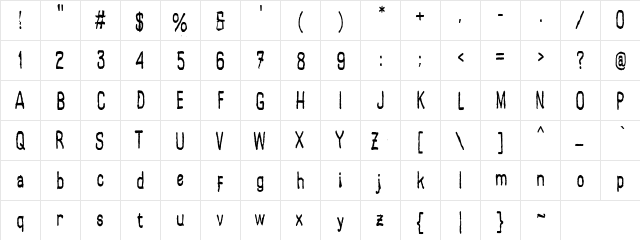
Sunday Everyday Regular
| Foundry | Yosan Studio |
| Designer | Yosan Studio |
Design Context for Sunday Everyday Typeface
Sunday Everyday is a composed and adaptable typeface that performs quietly and consistently across a wide range of design contexts.
Pro Tip: Use Sunday Everyday in both headline and body roles to test its range before committing to a single application.